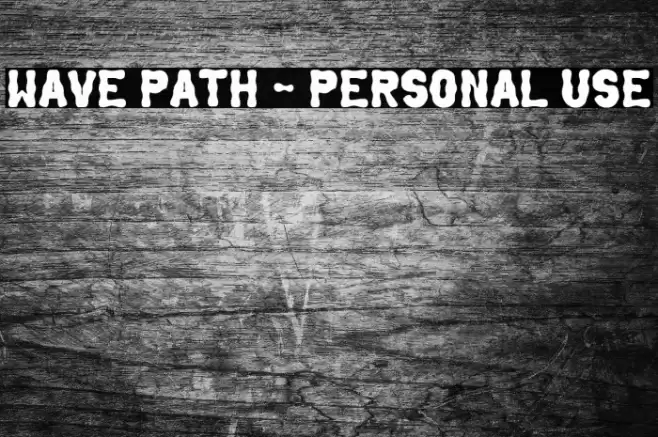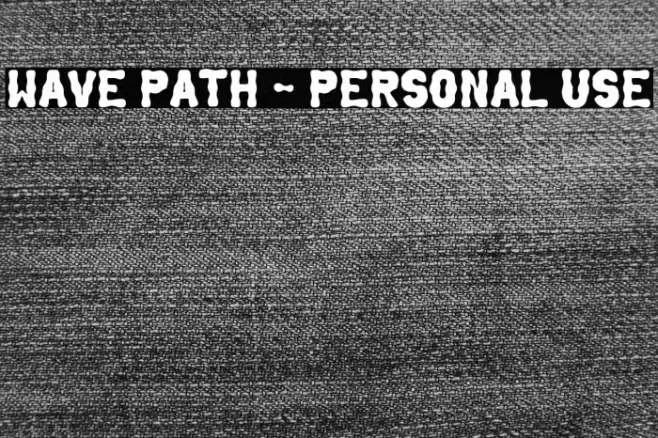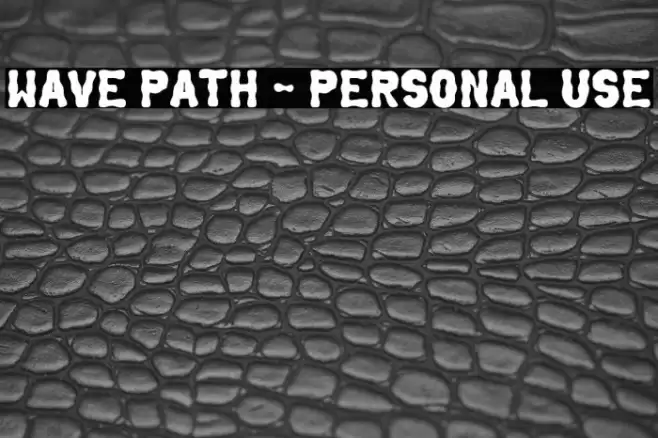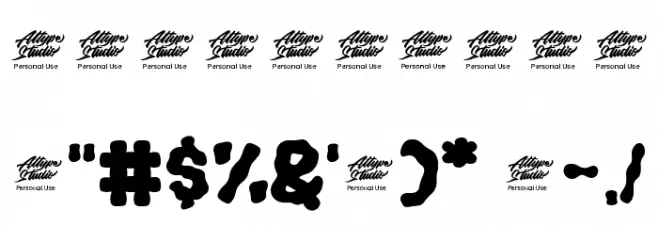
Wave Path - Personal Use Font
Wave Path - Personal Use Description
This font features a bold, playful style with a wavy, organic appearance. The characters are thick and rounded, giving them a soft and approachable feel. The unique design incorporates irregular edges and a flowing form, reminiscent of liquid or waves. This creates a dynamic and energetic look, making it stand out in any design. The font maintains consistency across uppercase and lowercase letters, as well as numbers and special characters, ensuring versatility in various applications.
A bold, wavy font with an organic, playful style from Regular fonts.
- Proposed Projects: Ideal for creative projects such as posters, branding, and packaging design where a fun and distinctive look is desired.
- Overall Style: Playful, Organic